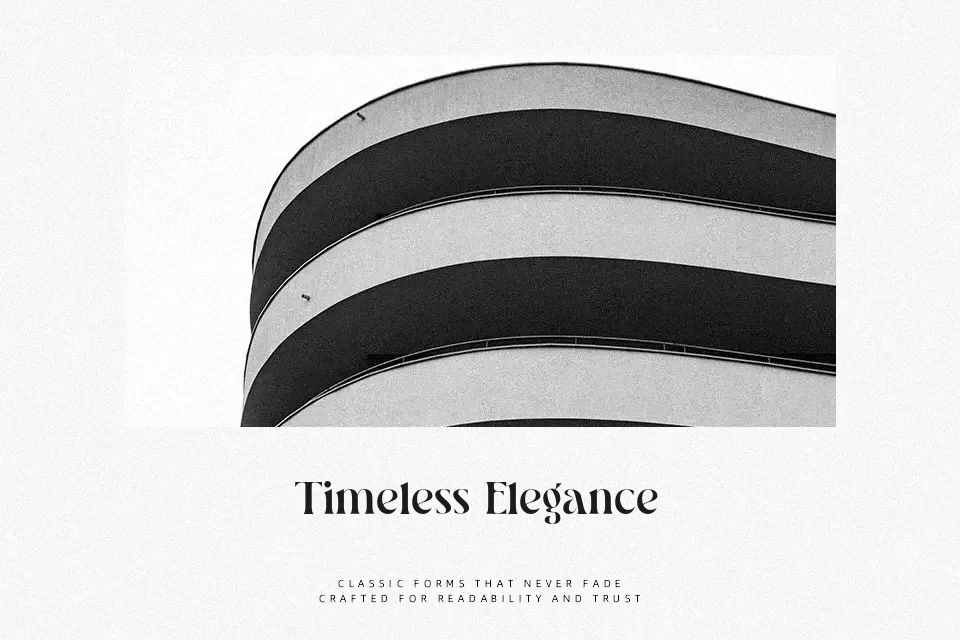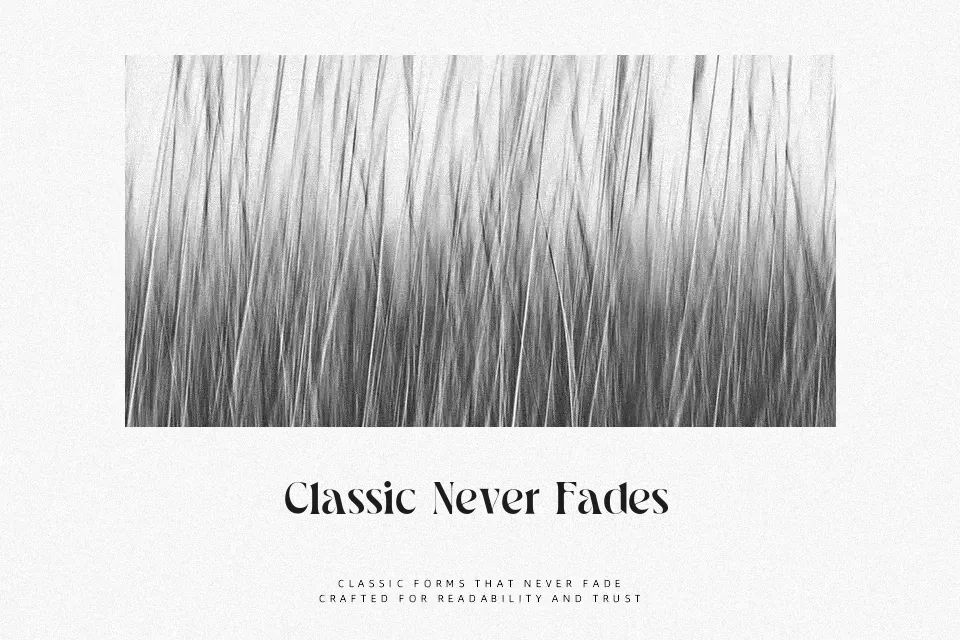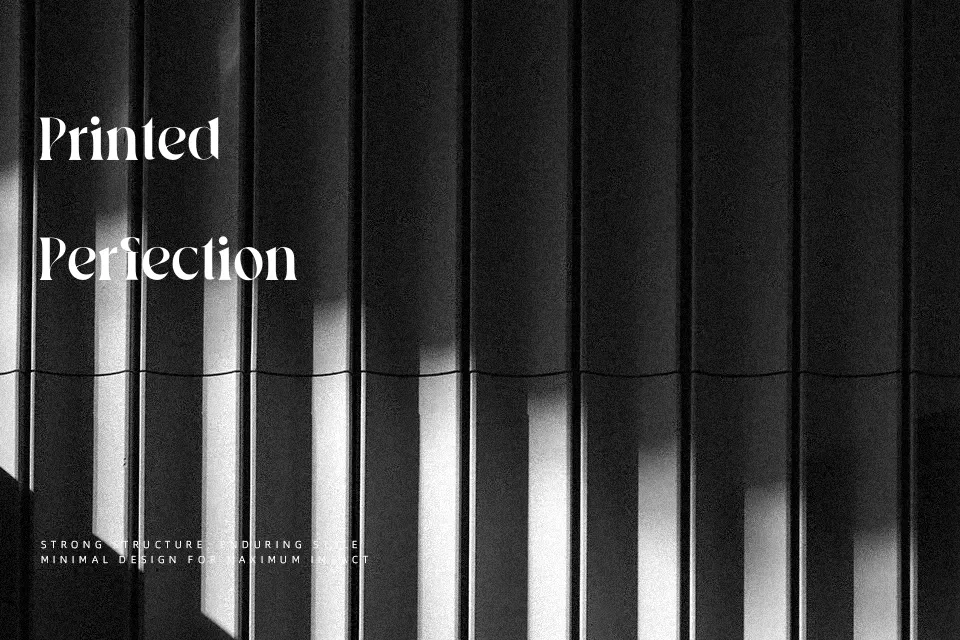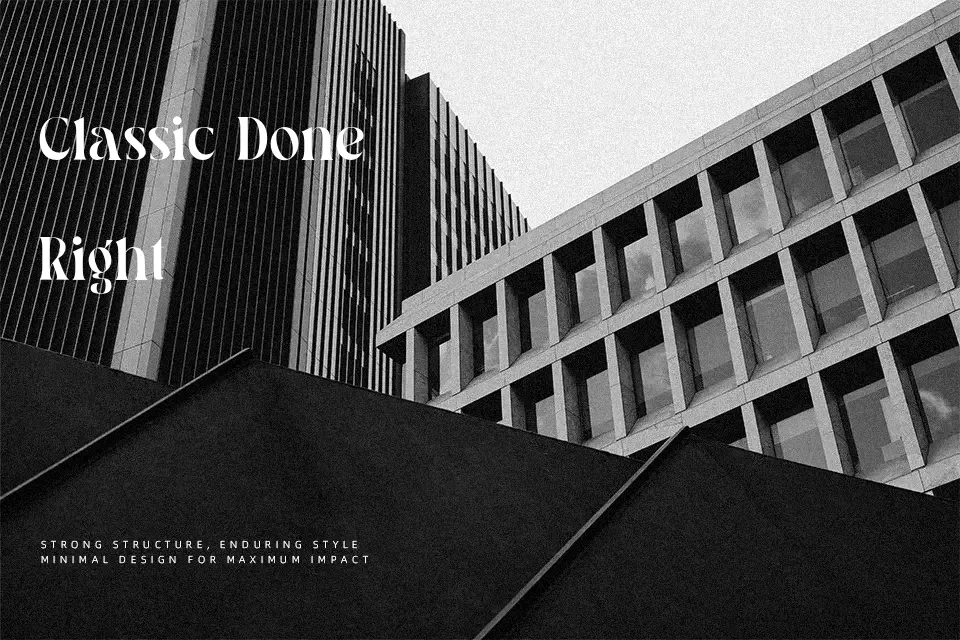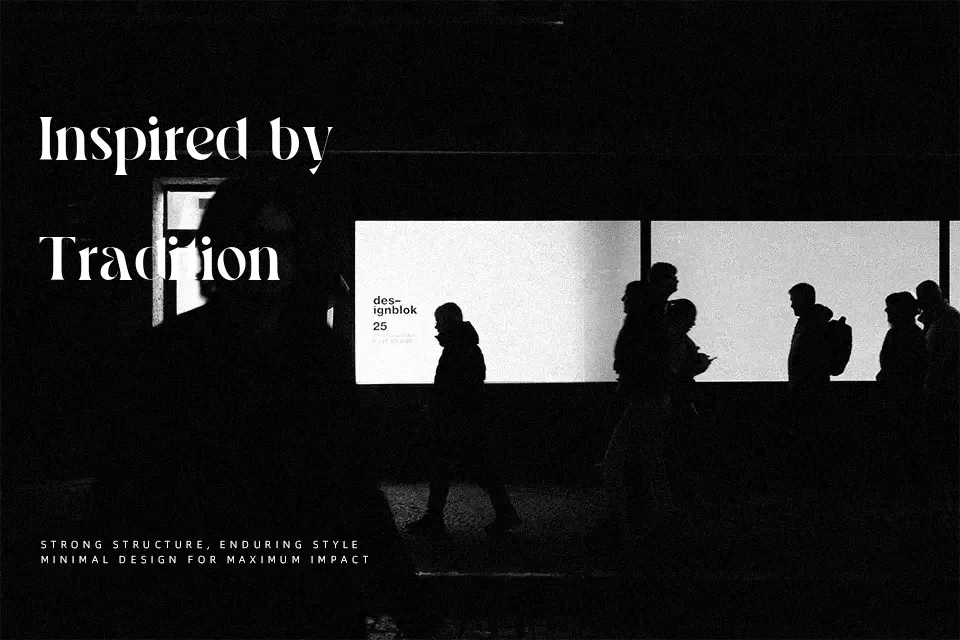
Pavon Font
Pavon Font works best at larger sizes, where its tall proportions, pronounced stroke contrast, and distinctive curved details can be read clearly. The serif letterforms combine slender connecting strokes with heavier vertical elements, creating an elegant but visibly decorative rhythm. Spacing appears measured rather than compressed, giving short words room to retain their shape in headlines and logo treatments. Uppercase characters have strong visual presence, while the lowercase maintains a similarly stylized structure. It is a practical choice for concise titles and premium-looking labels; its fine details and contrast make it less comfortable for small text or extended passages.
Best For: fashion campaign headlines,luxury beauty packaging,wedding stationery titles,editorial cover typography
Not Ideal For: long paragraph text,small interface labels,technical manuals,spreadsheet data
Perfect for headline, logo, and packaging, with a artistic and decorative style.